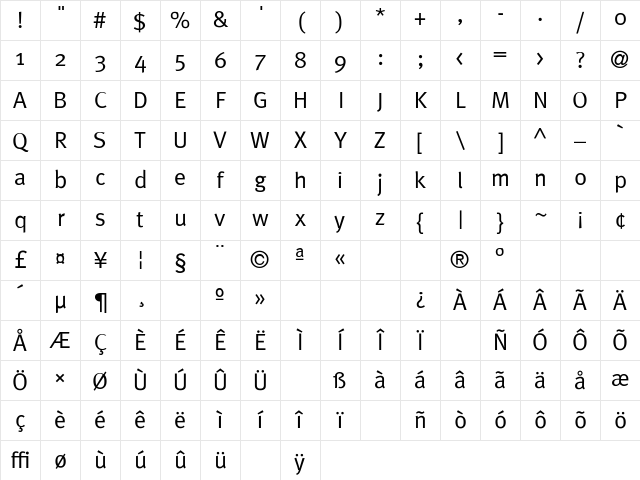
Meta-Normal Regular
Design Context for Meta-Normal
Meta-Normal is a composed and adaptable typeface that performs quietly and consistently across a wide range of design contexts.
Pro Tip: Use Meta-Normal in both headline and body roles to test its range before committing to a single application.